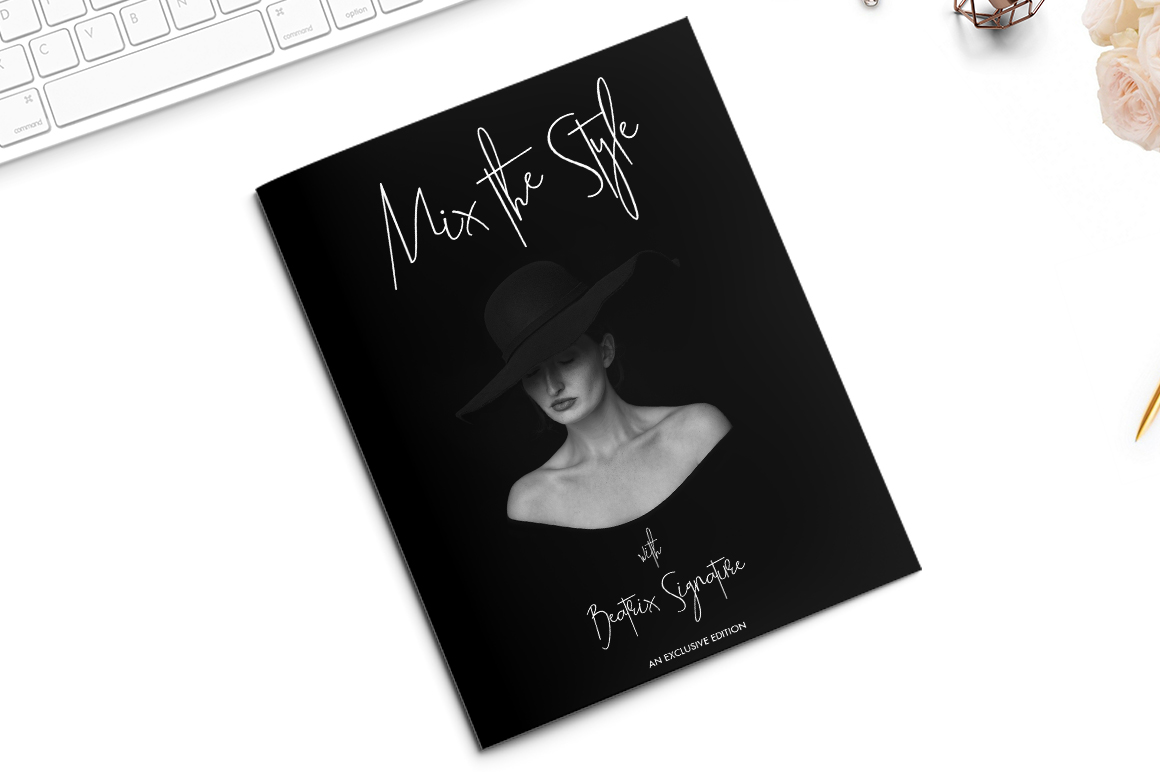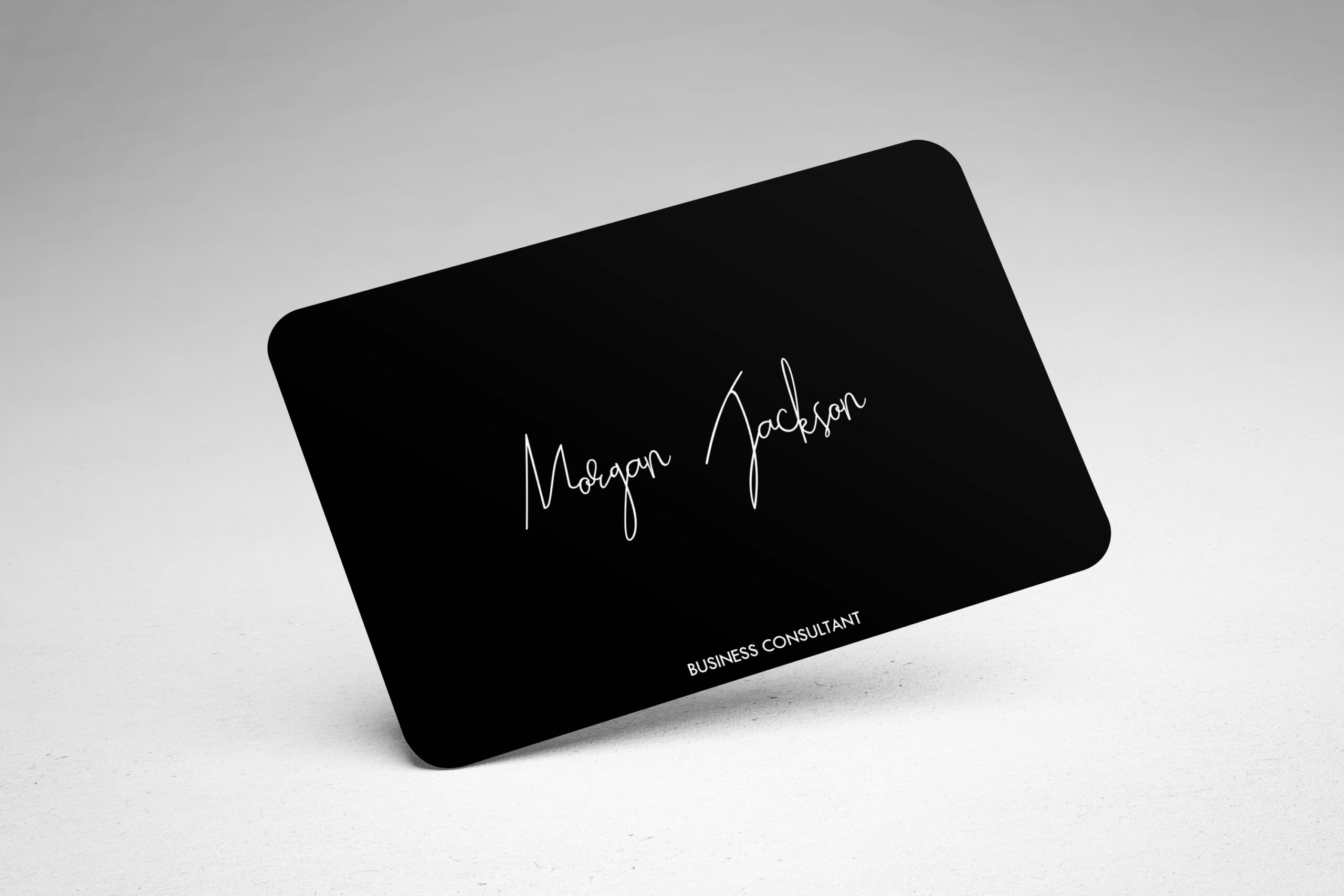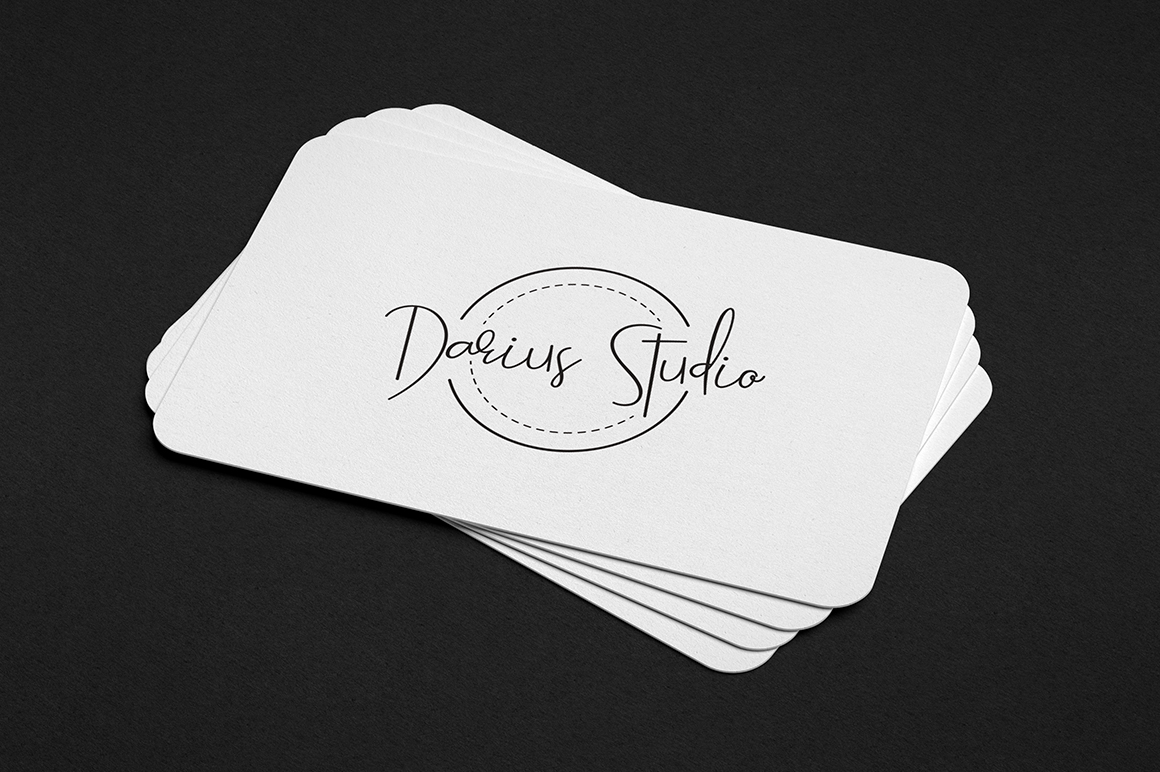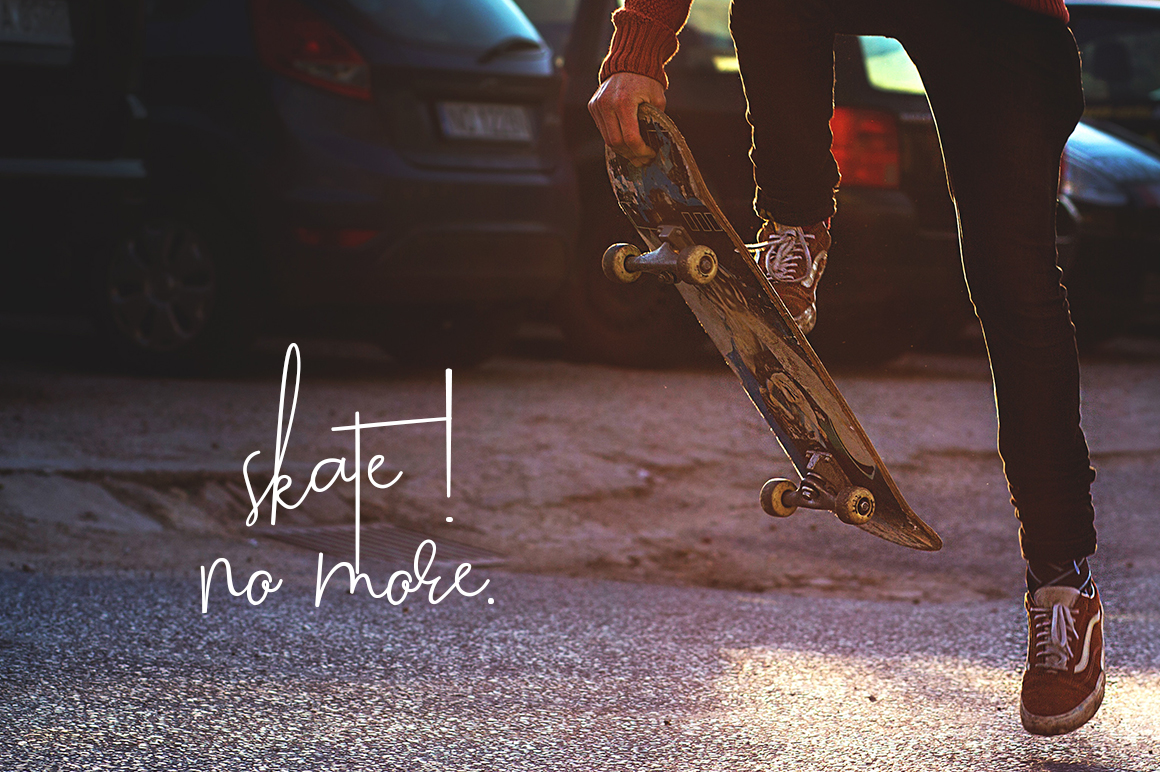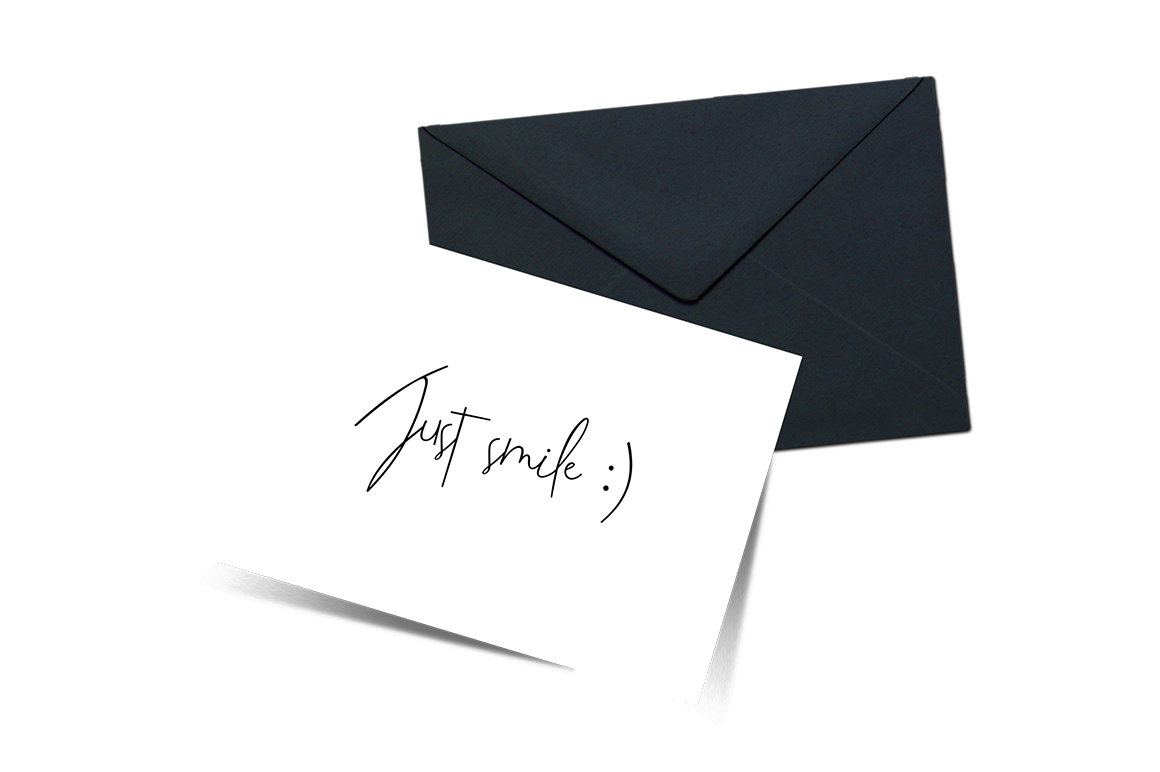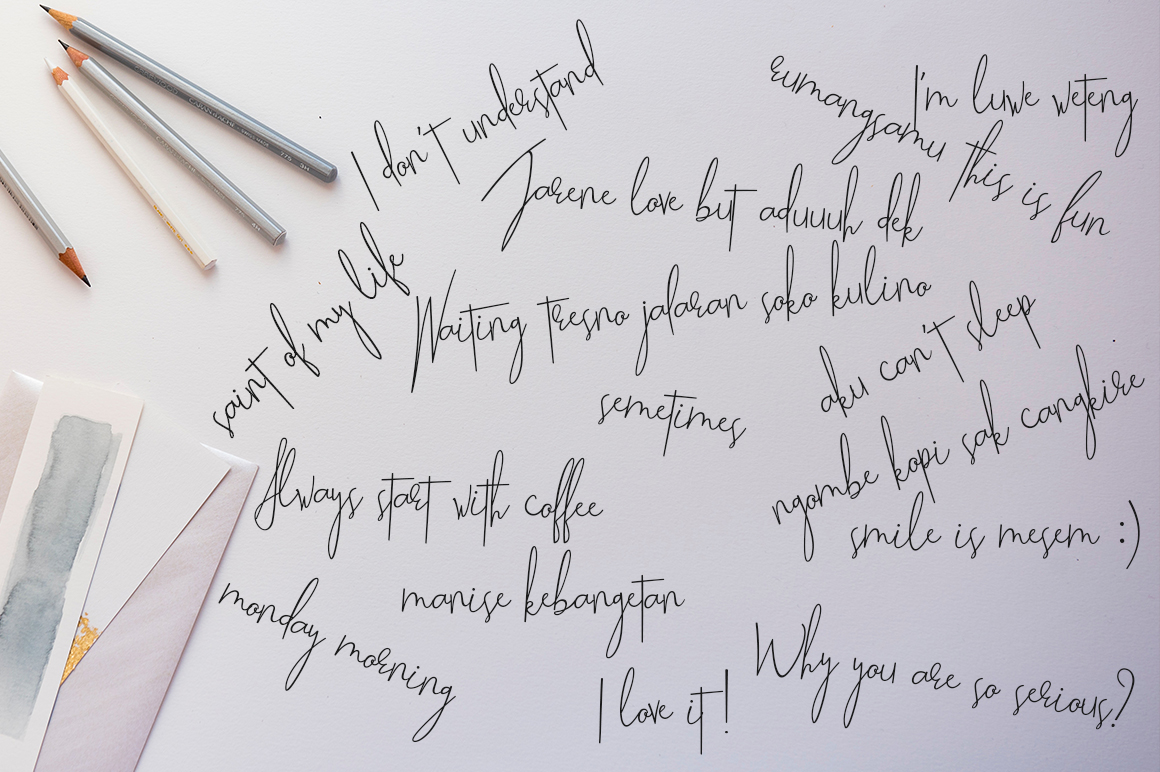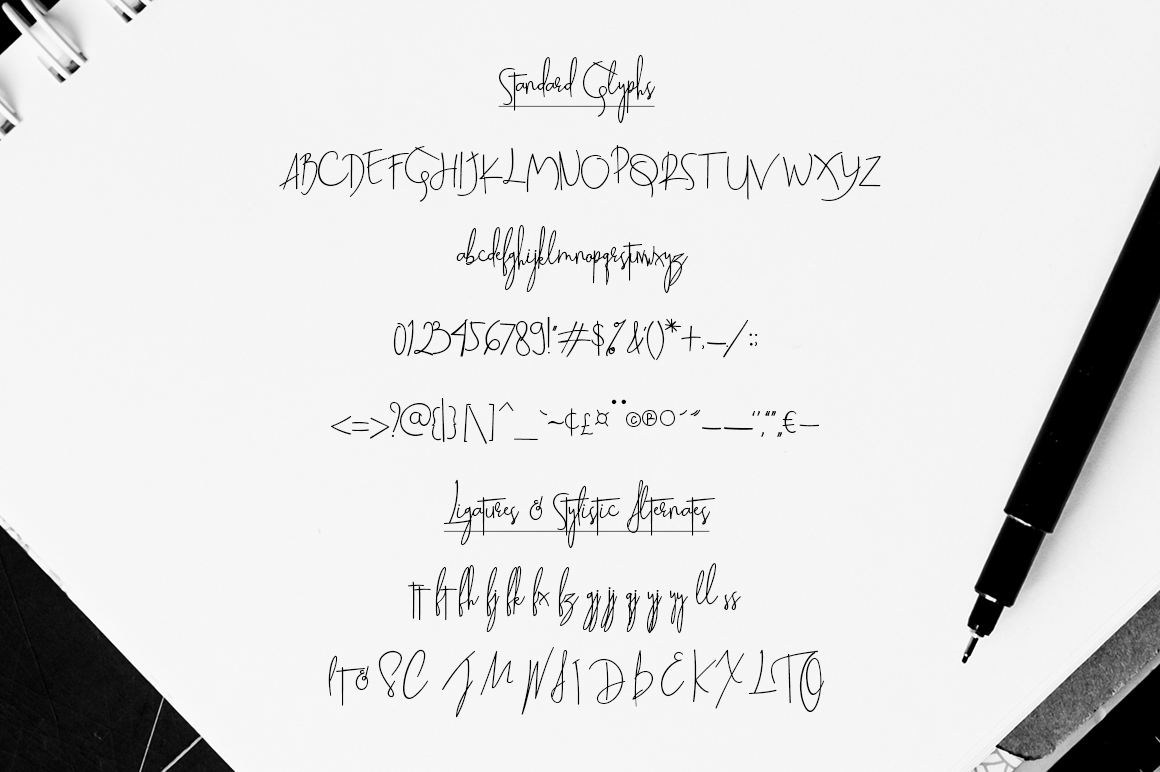
Beatrix Signature Font
About Beatrix Signature Font
Beatrix Signature is an elegant and stylish handwritten script font that looks perfect on clean and minimal projects. Perfect for logotype or displays, Beatrix Signature is a fresh and thin font that not only is completely current, but equally as timeless.